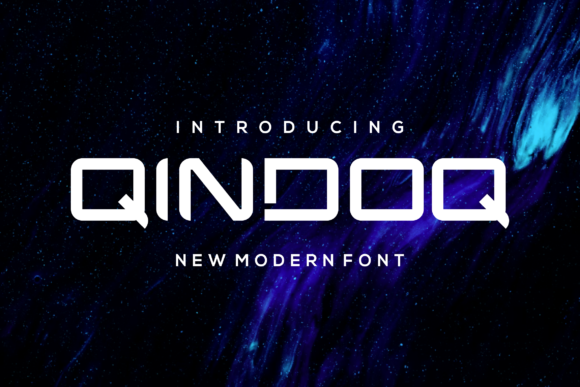
Welcome to the realm of Qindo Font - Modern Font, a typographic masterpiece crafted to leave an indelible mark in the world of tech logos. Qindo Font, the brainchild of kalingga.albert, is not just a font; it's a testament to creativity, precision, and boundless possibilities.
Qindo Font - Modern Font exudes boldness and authenticity, capturing the essence of the modern digital world. Its razor-sharp lines and striking curves dance in perfect harmony, evoking a sense of power and innovation. Embrace the future with Qindo Font and redefine the boundaries of tech-inspired design.
Whether you're a seasoned designer or just starting your creative journey, Qindo Font - Modern Font will elevate your projects to new heights. This sans serif font family is a perfect fit for any branding endeavor, adding a touch of sophistication and edginess to logos, t-shirt prints, e-sports branding, and beyond.
Unlock the limitless potential of Qindo Font - Modern Font and witness how it transforms your designs. Let your imagination run wild as you explore a vast array of applications. From sleek and minimalist logos to dynamic and eye-catching t-shirt designs, the possibilities are endless.
Qindo Font - Modern Font is not just a font, it's a design game-changer. Elevate your branding, captivate your audience, and leave a lasting impression in the digital sphere. Join the ranks of creative visionaries who have embraced Qindo Font and experienced the transformative power of great typography.